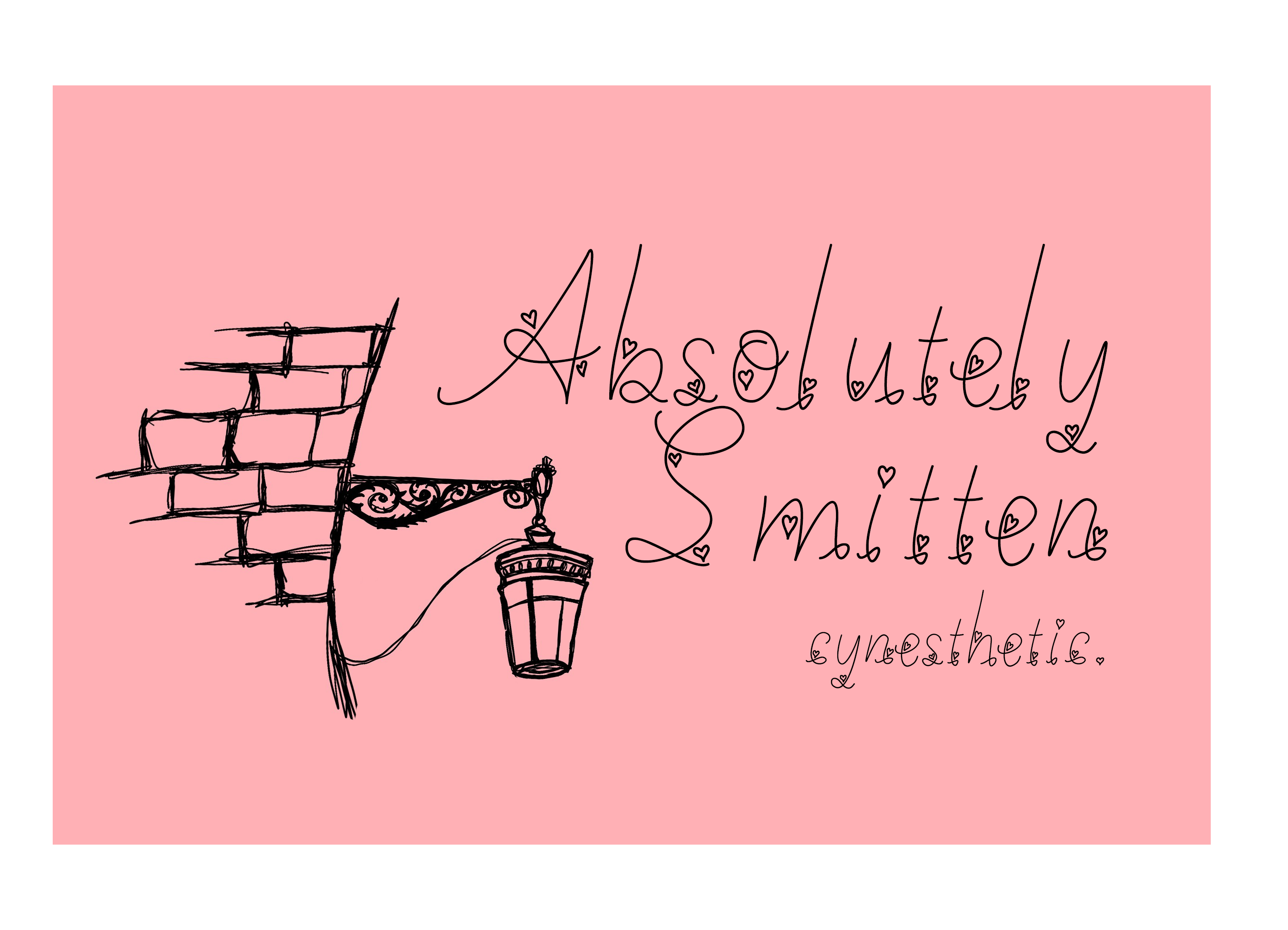
Smitten Font
About Smitten Font
Smitten is a cute little love letter font, with thin strokes and romantic embellishment. This handwritten font is a gem, and one that can add some sincerity to your designs.